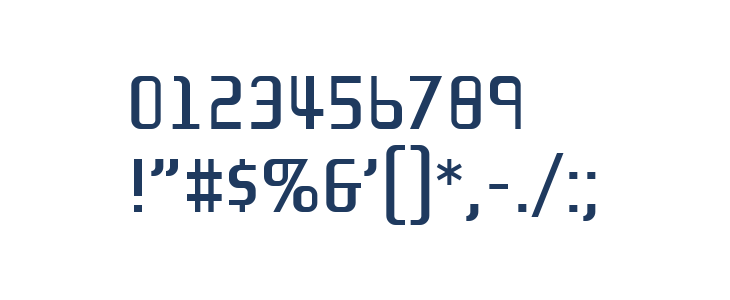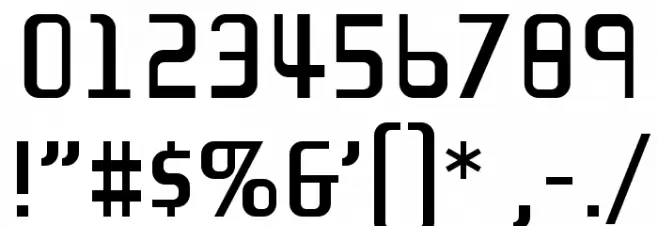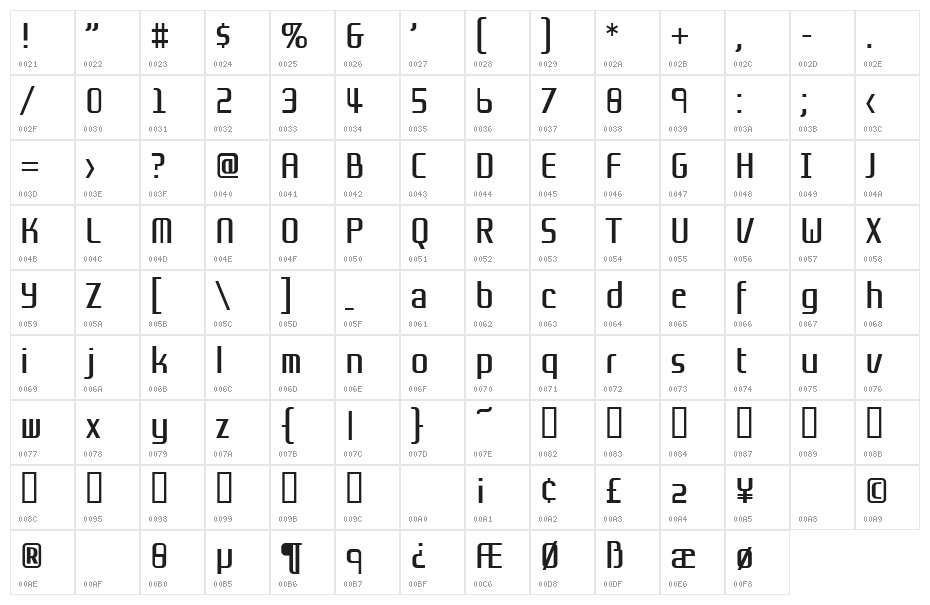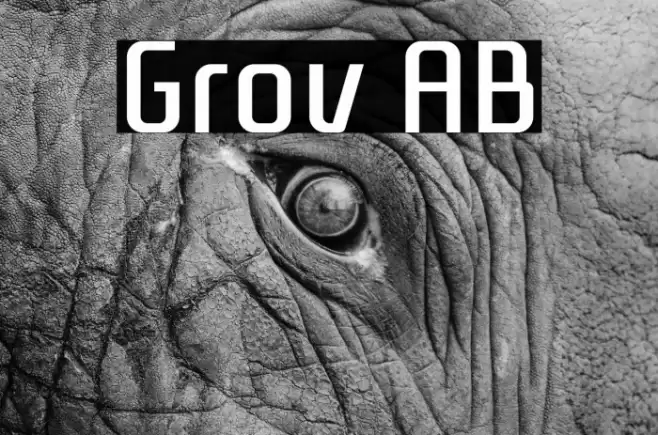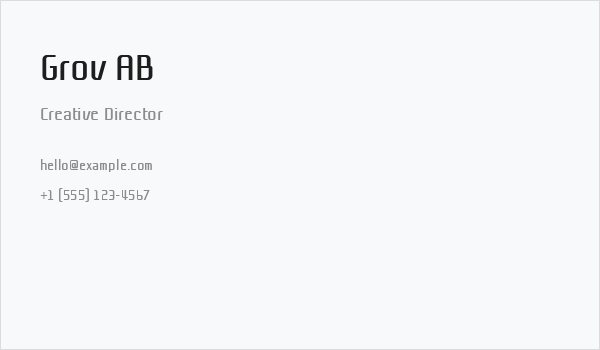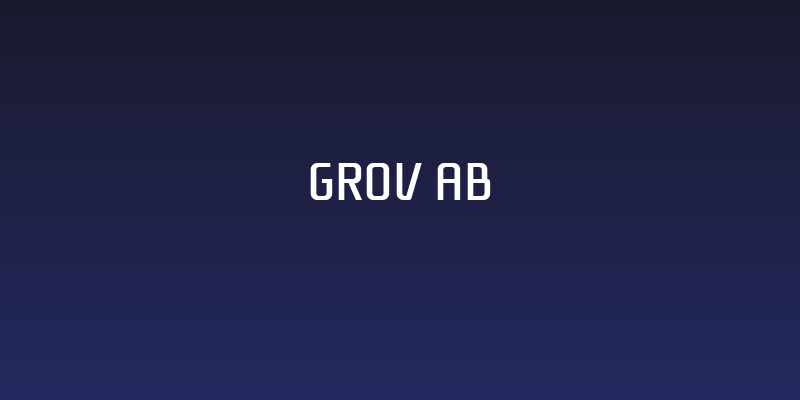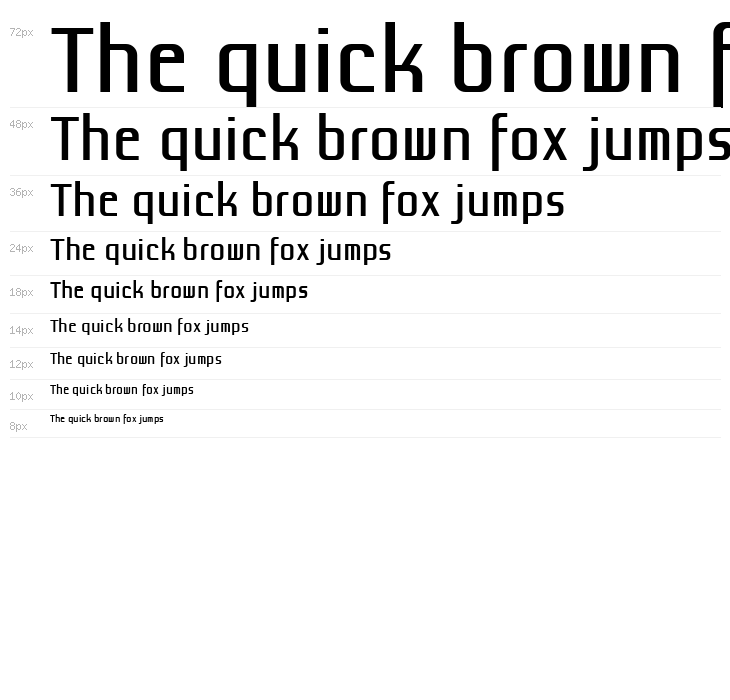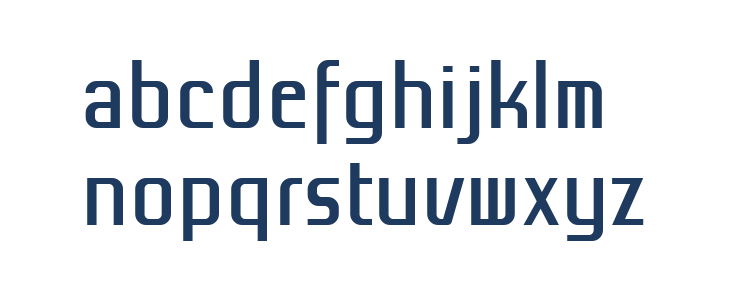
Grov AB Font
Grov AB Description
This font features a modern and geometric design with clean, straight lines and rounded edges. The uppercase letters are uniform in height, giving a structured and cohesive appearance. The lowercase letters maintain a similar geometric style, with a consistent x-height and open counters that enhance readability. The numerals are proportional and match the overall aesthetic, while the special characters are distinct and well-integrated. This font's design is both functional and stylish, making it suitable for a variety of applications.
Use CaseHeadlines, Body text, Logos
Proposed ProjectsIdeal for branding, signage, digital interfaces, and editorial design.